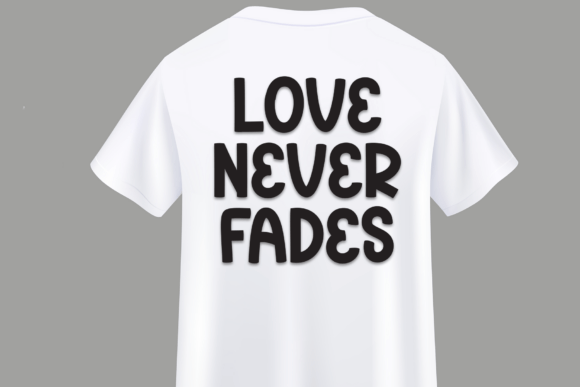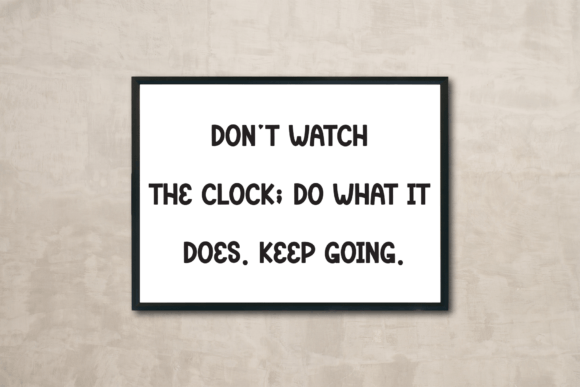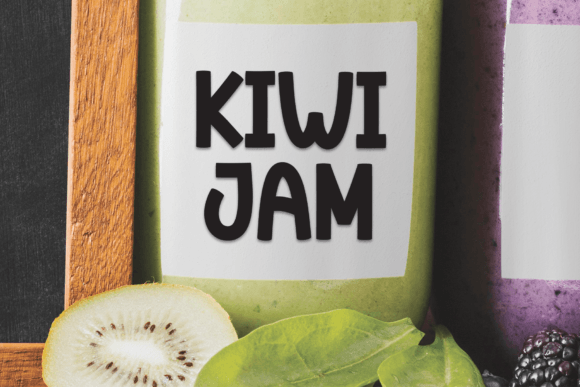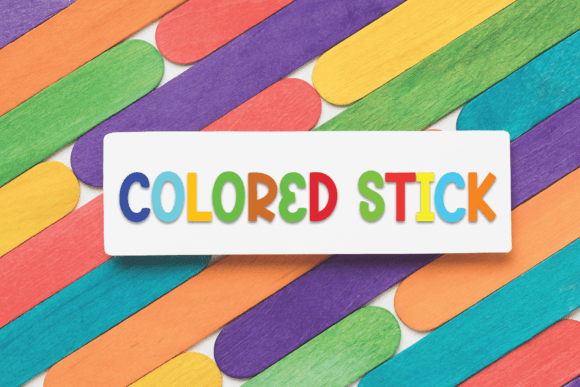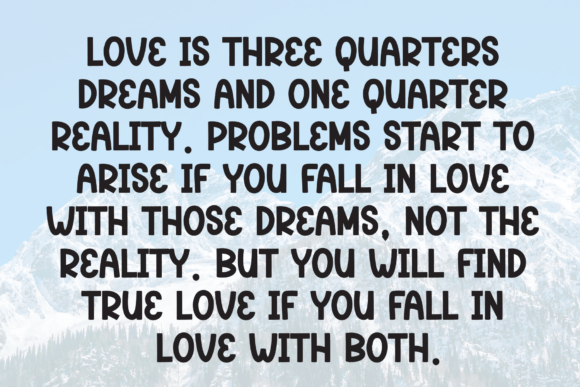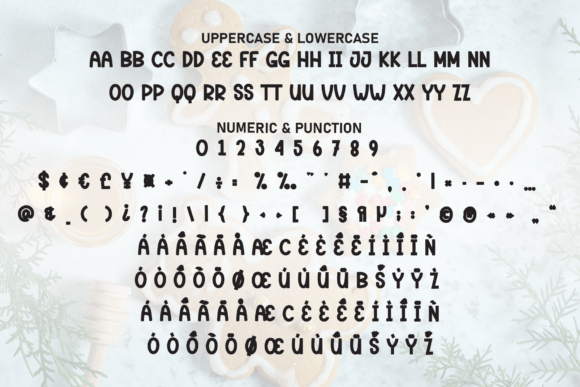
Gingerbread Font: Add a Sweet Touch to Your Designs
Gingerbread is a delightful display font that is sure to bring a smile to your face. With its playful, hand-written style, this font is perfect for adding a cheerful touch to any design. Whether you’re working on a festive project or a casual one, Gingerbread font is an excellent choice. In this article, we’ll dive into the world of Gingerbread font, exploring its features, uses, and benefits for designers and crafters.
What is Gingerbread Font?
Gingerbread font is a fun and playful display font that mimics the look of hand-written text. Its friendly and approachable style makes it perfect for designs that require a personal touch. The font features rounded edges, irregular letterforms, and a dash of whimsy, giving it a unique and charming personality.
Features of Gingerbread Font
- Hand-written style: Gingerbread font looks like it was written by hand, giving it a personal and friendly feel.
- Playful and whimsical: The font features rounded edges and irregular letterforms, making it perfect for playful and creative designs.
- Friendly and approachable: Gingerbread font has a warm and inviting style that makes it perfect for designs that require a personal touch.
- Perfect for festive themes: The font’s cheerful and playful style makes it ideal for festive themes, such as Christmas, Halloween, or Easter.
Uses of Gingerbread Font
Gingerbread font is versatile and can be used in a variety of design projects, including:
- Festive designs: Use Gingerbread font to create festive designs for holidays, such as Christmas cards, Halloween invitations, or Easter egg designs.
- Casual projects: The font’s playful style makes it perfect for casual projects, such as social media graphics, blog posts, or flyers.
- Branding and packaging: Gingerbread font can add a personal touch to branding and packaging designs, making them more approachable and friendly.
- DIY crafts: Crafters can use Gingerbread font to create custom signs, banners, or decorations for parties or special events.
Benefits of Using Gingerbread Font
Using Gingerbread font in your designs offers several benefits, including:
- Unique and eye-catching: The font’s playful style makes it stand out from more traditional fonts, adding a unique touch to your designs.
- Easy to read: Despite its playful style, Gingerbread font is easy to read, making it perfect for designs that require a clear message.
- Versatile: The font can be used in a variety of design projects, from festive designs to casual projects.
- Time-saving: With Gingerbread font, you can create professional-looking designs in no time, without having to spend hours on custom lettering.
Tips for Using Gingerbread Font
Here are some tips for using Gingerbread font in your designs:
- Use it sparingly: While Gingerbread font is playful and fun, it can be overwhelming if used excessively. Use it sparingly to add a touch of whimsy to your designs.
- Pair it with complementary fonts: Pair Gingerbread font with complementary fonts, such as sans-serif fonts, to create visual interest and hierarchy.
- Experiment with colors: The font’s playful style lends itself well to bright and bold colors. Experiment with different colors to add a pop of personality to your designs.
Gingerbread font is a fun and playful display font that can add a sweet touch to your designs. With its friendly style, irregular letterforms, and whimsical personality, it’s perfect for festive themes and casual projects. Whether you’re a designer or crafter, Gingerbread font is an excellent choice for adding a personal touch to your designs. So why not give it a try and see how it can elevate your designs?